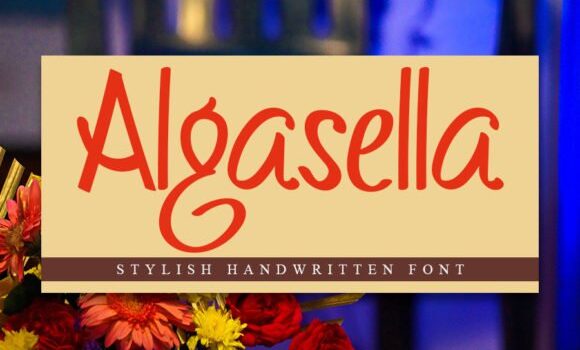
algasella
Algasella Font – Free Download Introduction to Algasella Font Algasella is a sweet and friendly handwritten font. 📸 Preview Gallery 4 images 📌 Product Name Algasella Font 👤 Author FL Space 📂 Category Explore ⬇️ Download Algasella Font FREE Free